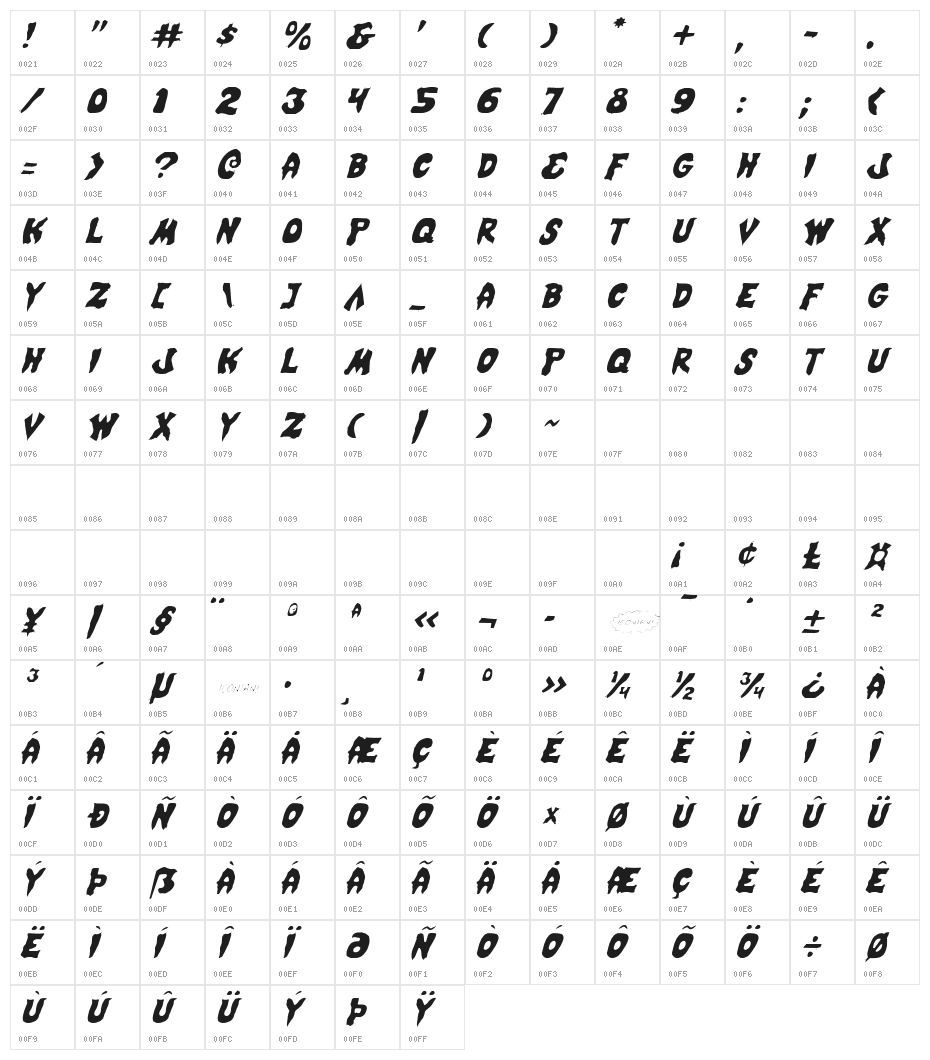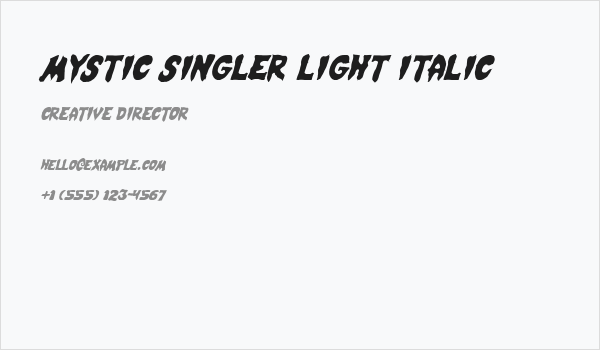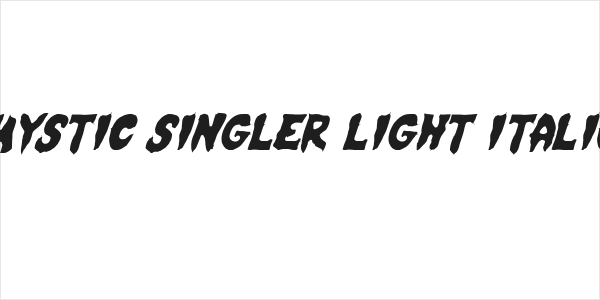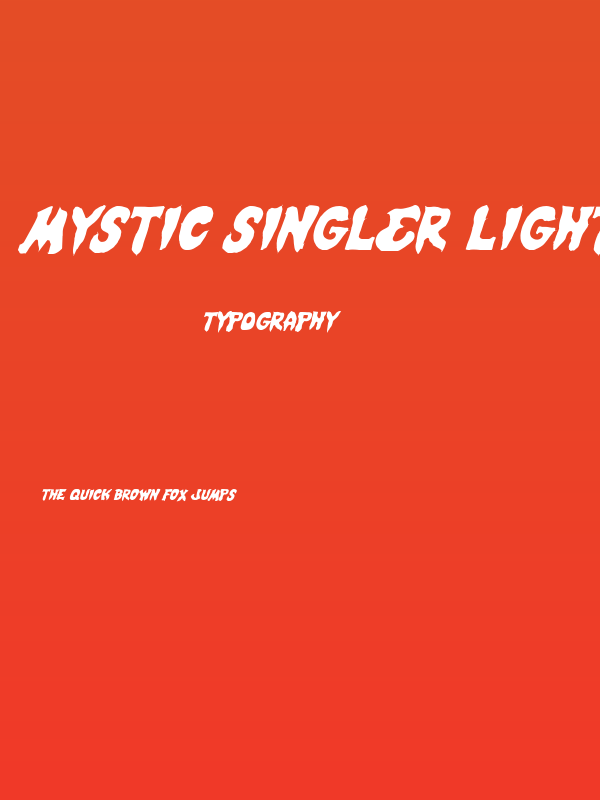
Mystic Singler Light Italic Font
Mystic Singler Light Italic Description
This font features a bold and dynamic style with a strong presence. The characters are designed with a brush-like texture, giving them a hand-painted appearance. The strokes are thick and irregular, adding a sense of movement and energy. The uppercase and lowercase letters maintain a consistent style, with sharp edges and slightly slanted forms. Numbers and special characters follow the same aesthetic, ensuring uniformity across all glyphs. The overall impression is one of boldness and creativity, making it suitable for attention-grabbing designs.
| Proposed Projects | Ideal for posters, branding, album covers, and any project requiring a bold, artistic touch. |